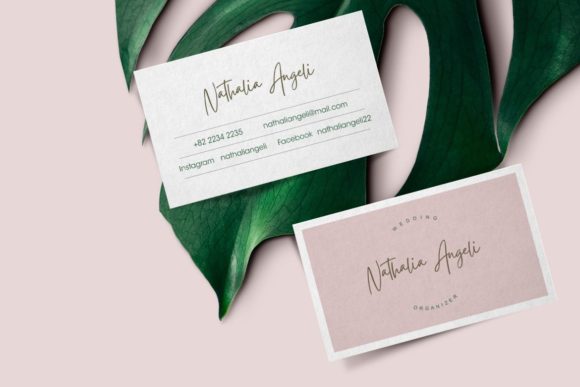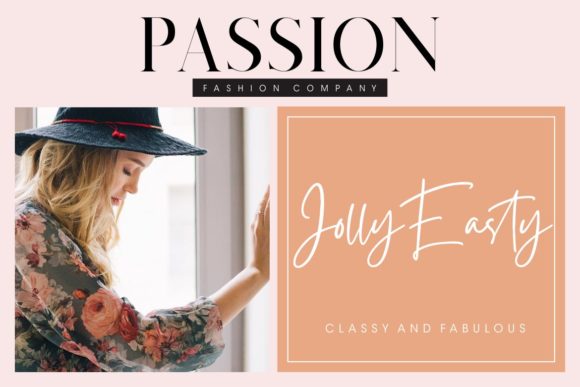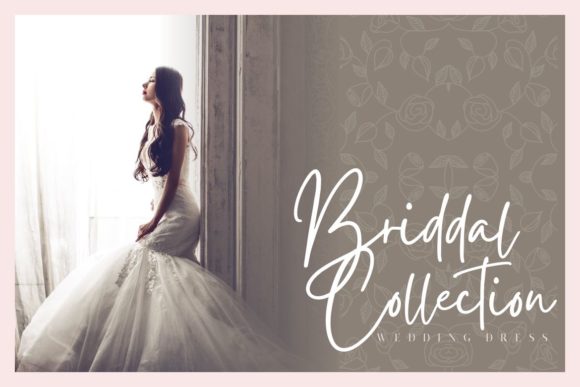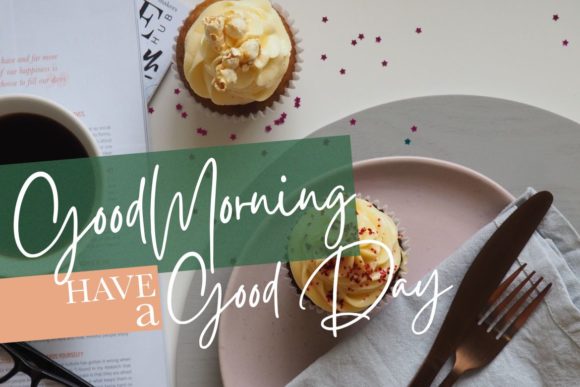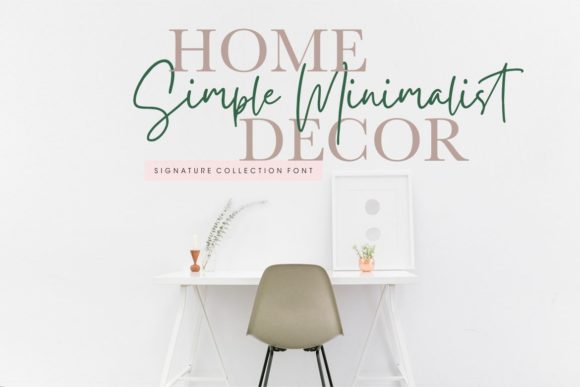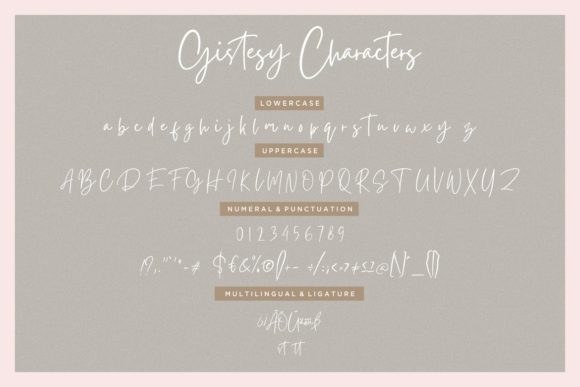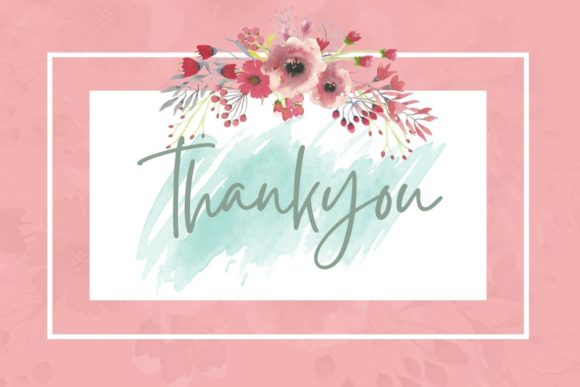
HomeScript FontsGistesy Font Script Fonts Gistesy Font FacebookXPinterestWhatsApp Gistesy Font Poster 2 Gistesy Font Poster 3 Gistesy Font Poster 4 Gistesy Font Poster 5 Gistesy Font Poster 6 Gistesy Font Poster 7 Gistesy Font Poster 8 About Gistesy Font Gistesy is a cute and sweet handwritten font with a unique style. Get inspired by its unique feel. DOWNLOAD NOW People also explored Playground Font Austry Royal Font Holding Font Smitten Valentine’s Day Script Font Tabitha Valerie Font Crake Font Bakery The Samanta Font Fortuna Font 352 0 TagsGistesy Font Previous articleAlesandra FontNext articleMarline Script Font LEAVE A REPLY Cancel reply Comment: Please enter your comment! Name:* Please enter your name here Email:* You have entered an incorrect email address! Please enter your email address here Website: Save my name, email, and website in this browser for the next time I comment. Personal Use Free Letter Hanger Personal Use Free Read more about this font Angista Script Personal Use Free Read more about this font Indonesia Dermawan Personal Use Free Read more about this font Gdynia Personal Use Free Read more about this font BLOG Fonts That Capture the Spirit of New York City New York City is more than just a place—it’s an experience, a rhythm, a visual language... Exploring Font Trends The 10 Best Handwriting Fonts to Add Personality to Your Designs Top 7 Google Fonts Alternatives for Faster and Privacy-Friendly Web Design (2025)